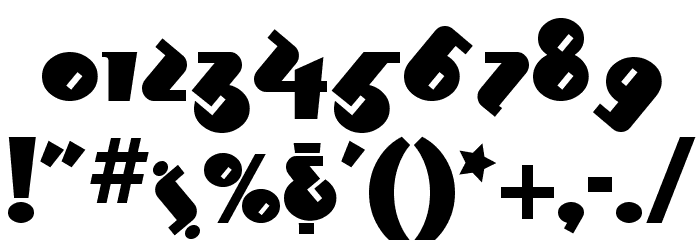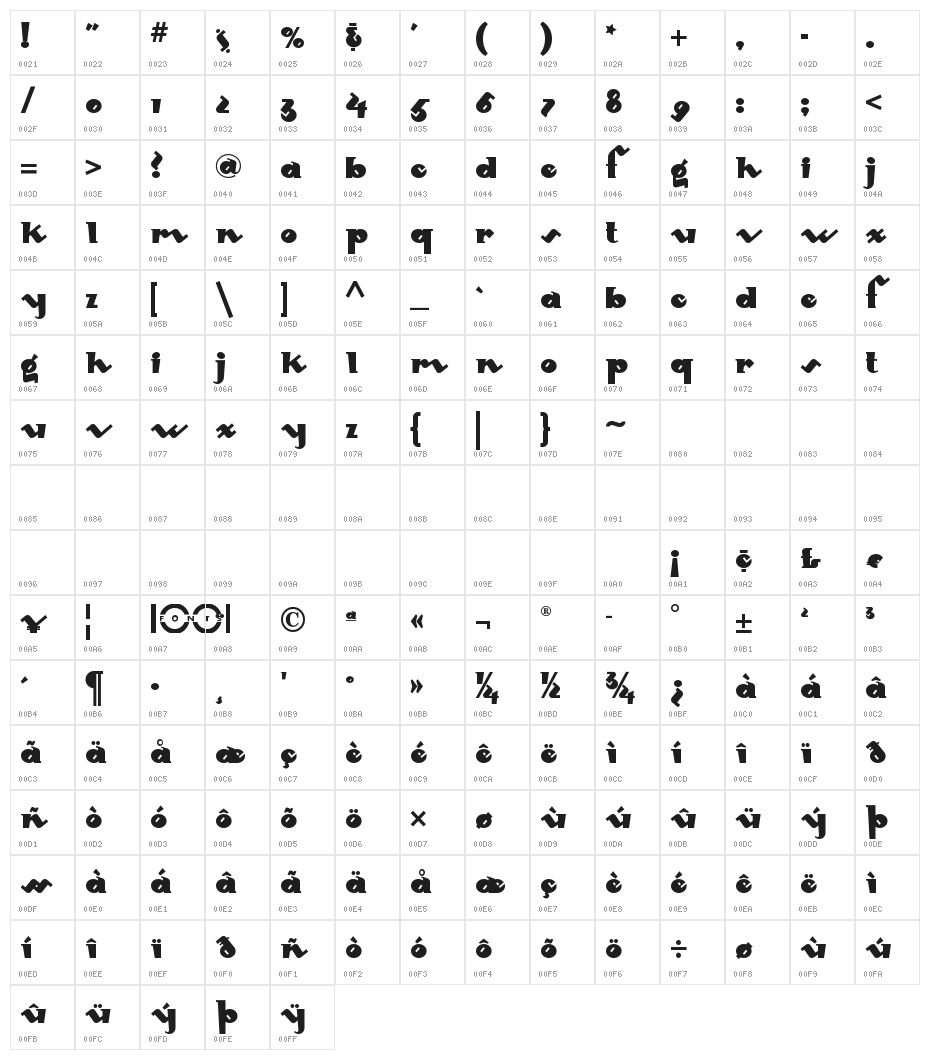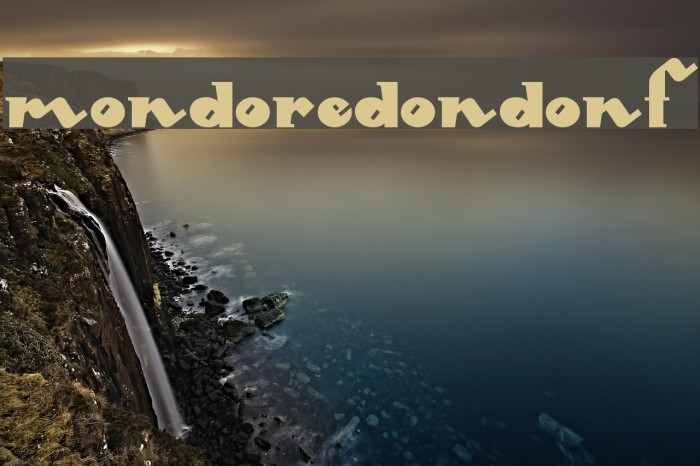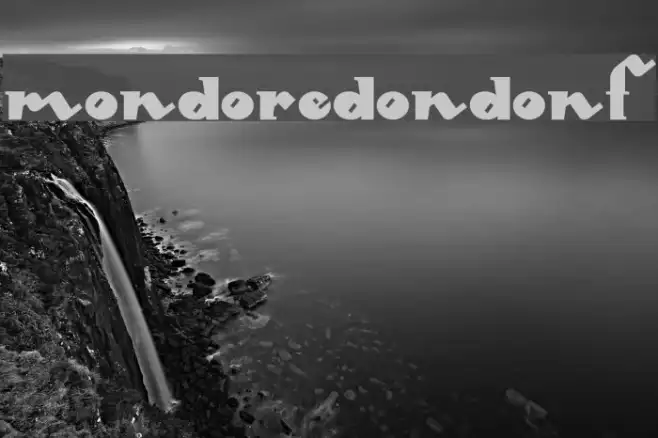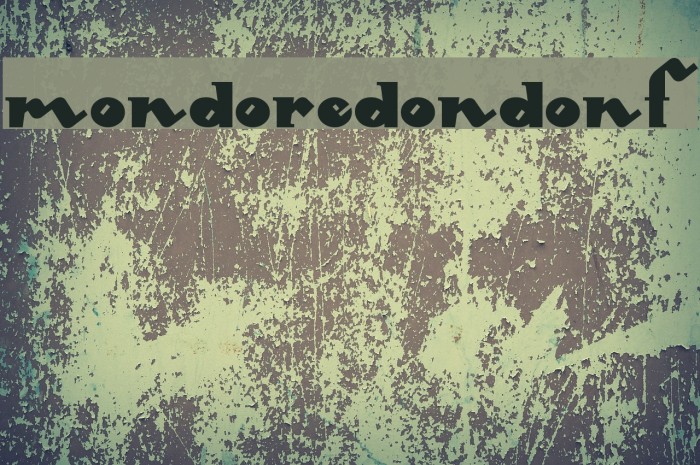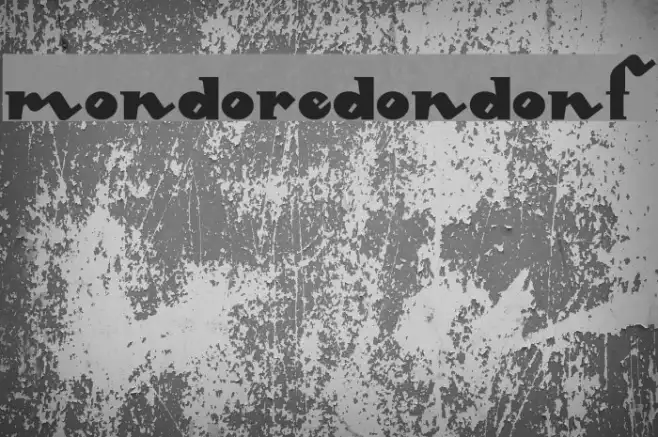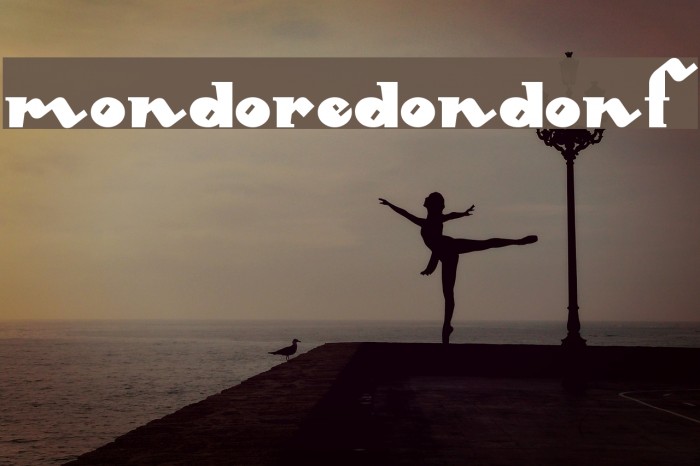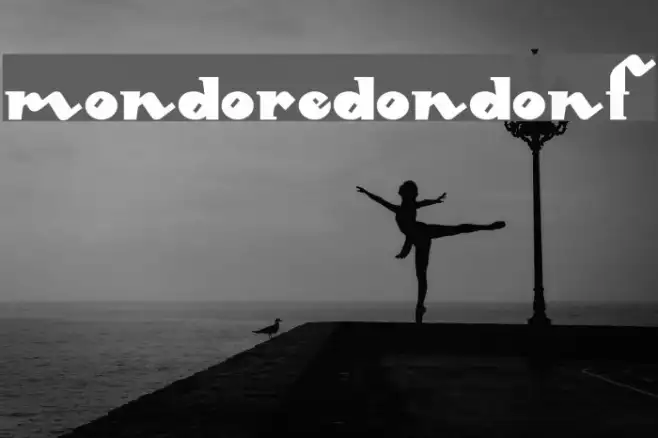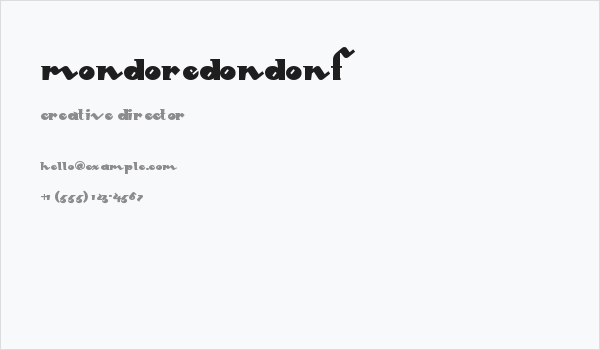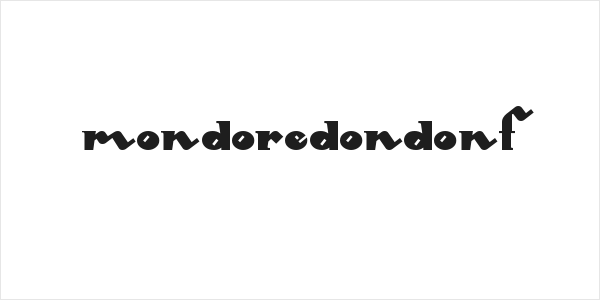
MondoRedondoNF Font
MondoRedondoNF Description
This font features a bold and playful design with a distinct geometric flair. The characters are crafted with sharp angles and unique curves, giving it a dynamic and energetic appearance. The uppercase and lowercase letters maintain a consistent style, while the numerals and special characters complement the overall aesthetic. The font's boldness makes it stand out, ideal for attention-grabbing designs. Its unique style is both modern and slightly retro, making it versatile for various creative projects.
Proposed ProjectsIdeal for posters, logos, branding, and any design requiring a bold, eye-catching typeface.